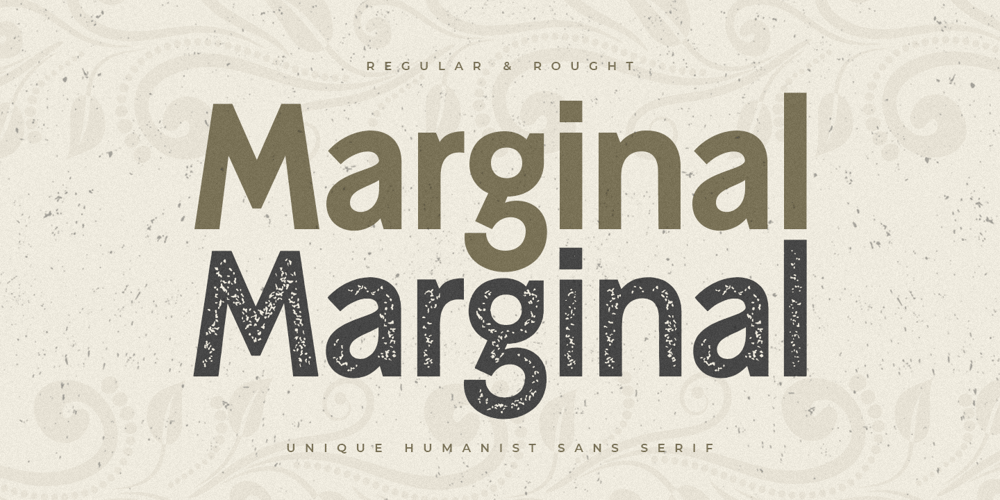
Marginal Font Family was designed by Zamroni Hamzah and published by Sensatype Studio. Marginal contains 2 styles and family package options. Marginal is a Humanist Vintage Sans Serif. A New Vintage font that we created special for Unique branding needs, with extra rough style that ready to add value of your brand. It’s so nice to leverage designer or product owner that need solutions to make their design look more unique and vintage.Marginal Vintage Sans Serif font ready with: Lowercase and Uppercase characters Numbers and Punctuations Preview as a inspirations that you can do with Marginal font Available for PC and Mac Wish you enjoy our font. 🙂